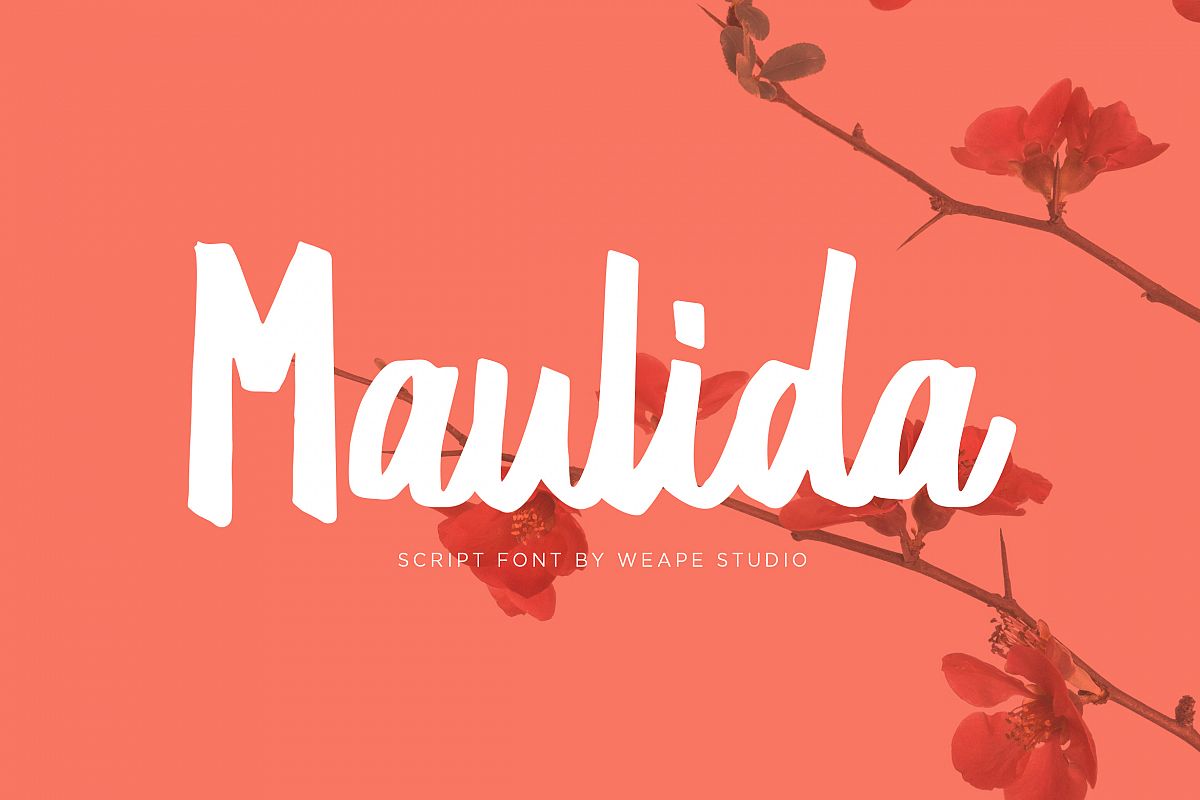
Maulida
Maulida Script, font with unique strokes makes it beautiful and looks natural as written by hand. The font will make your design more beautiful.
Maulida is perfect for branding, wedding, fashion, signature, photography title, poster, social media, music album, book cover, packaging, handwritten quotes, greeting cards, and advertising.
All fonts containing upper & lowercase characters, numerals, punctuation.